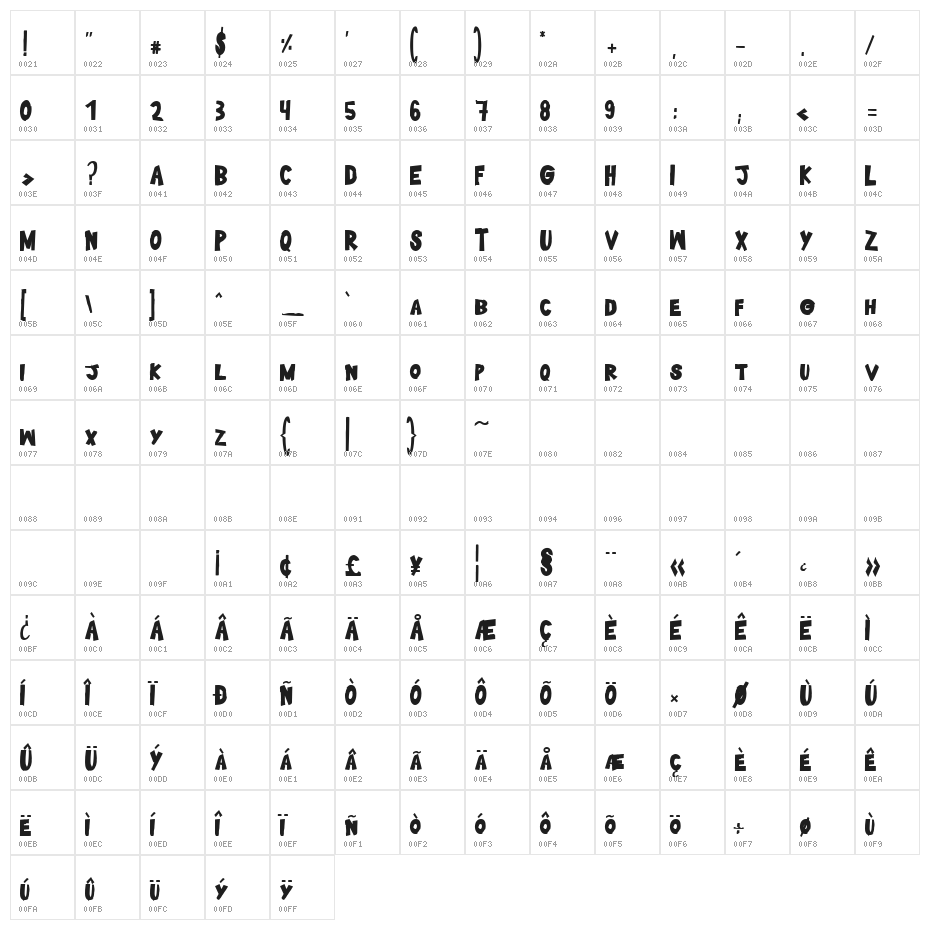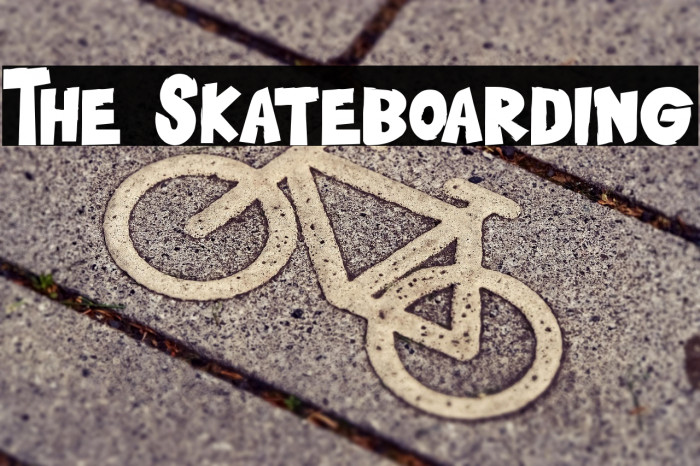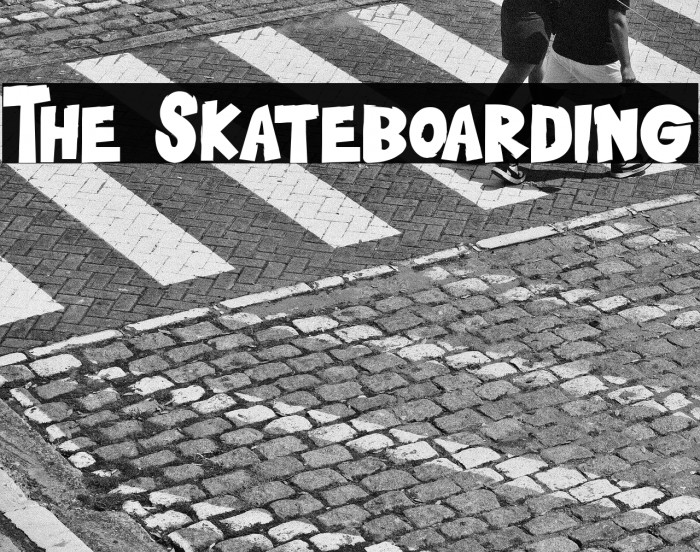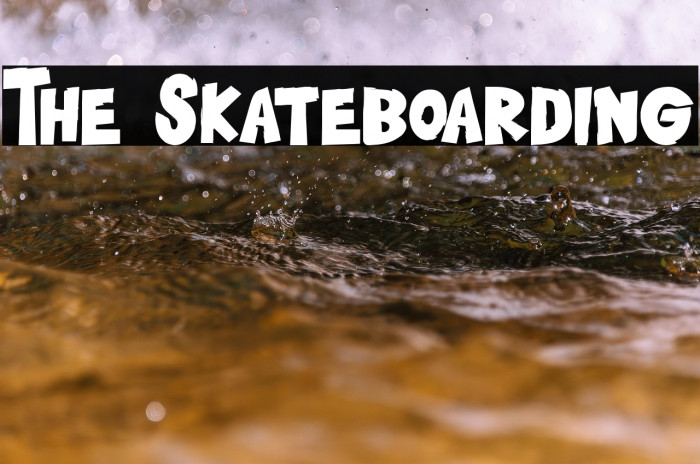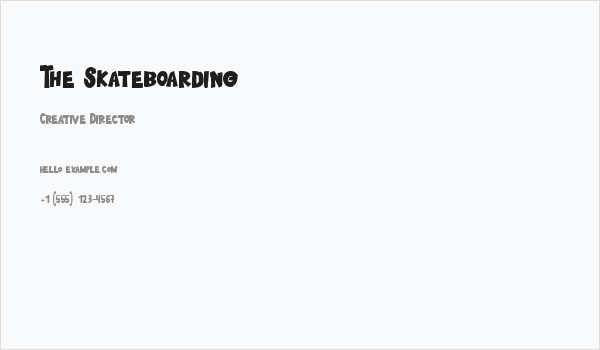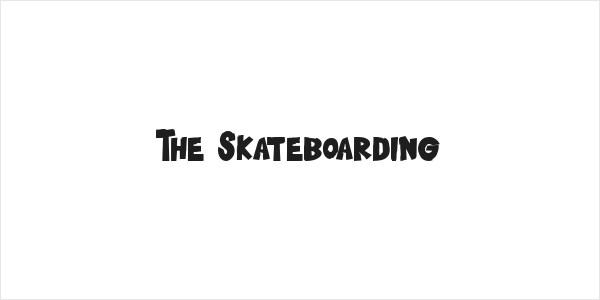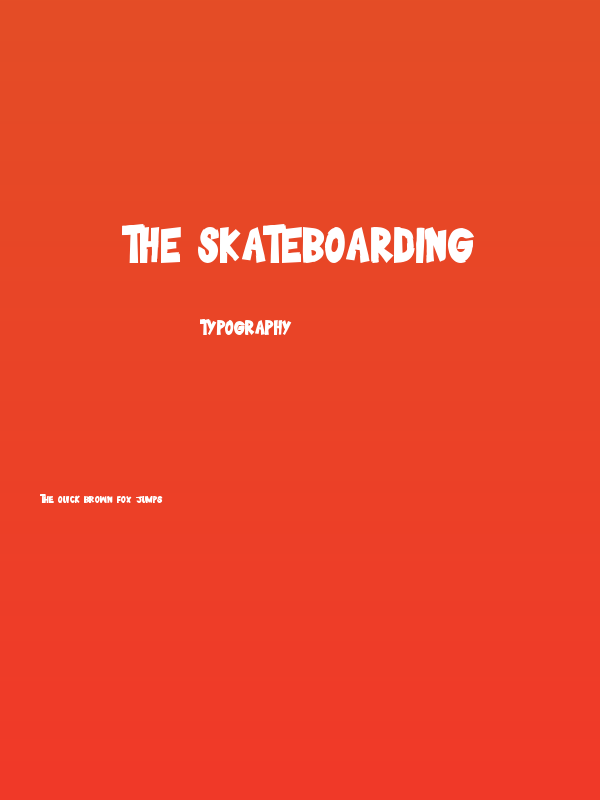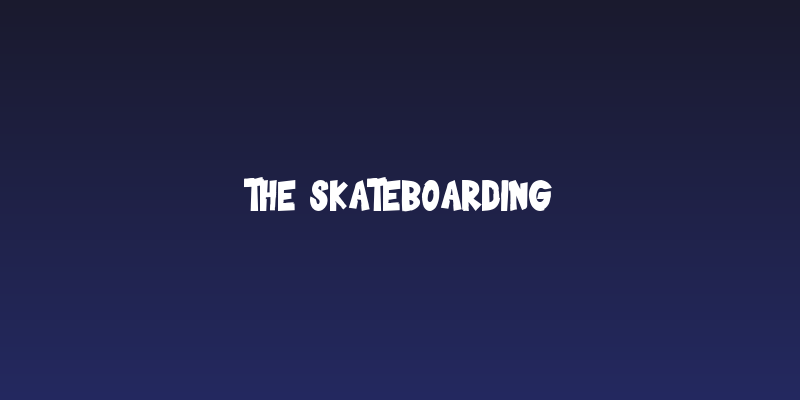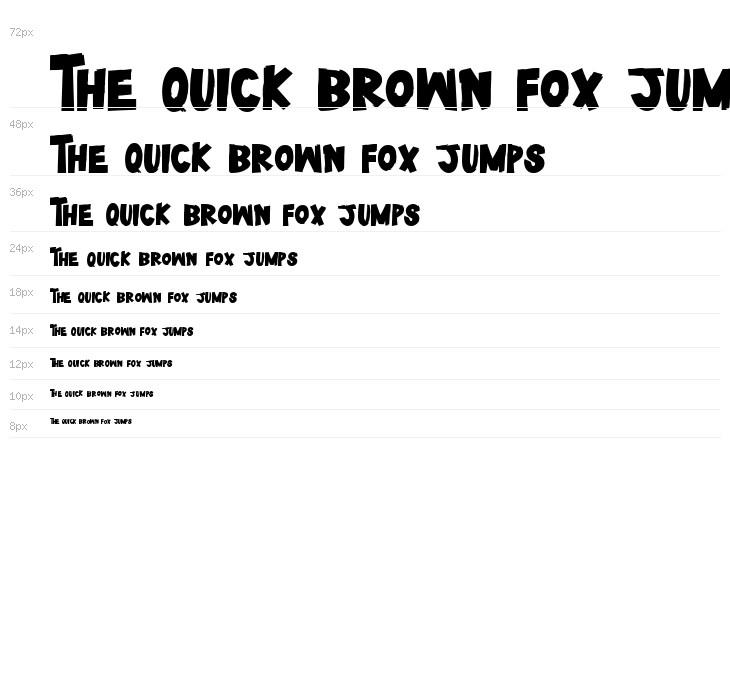
The Skateboarding Font
The Skateboarding Description
This font features a bold, energetic style with a playful and slightly rebellious edge. The characters are thick and uneven, giving them a hand-drawn, graffiti-like appearance. The uppercase letters are particularly striking, with exaggerated curves and angles that convey a sense of movement and dynamism. The lowercase letters maintain this lively aesthetic, ensuring consistency throughout the typeface. Numbers and special characters are equally bold and expressive, making them stand out in any design. This font is perfect for projects that require a youthful, urban vibe.
| Overall Style | Urban, Playful, Energetic |
| Use Case | Logos, Posters, Headlines |
| Proposed Projects | Ideal for skateboarding brands, streetwear designs, event posters, and youth-oriented marketing materials. |